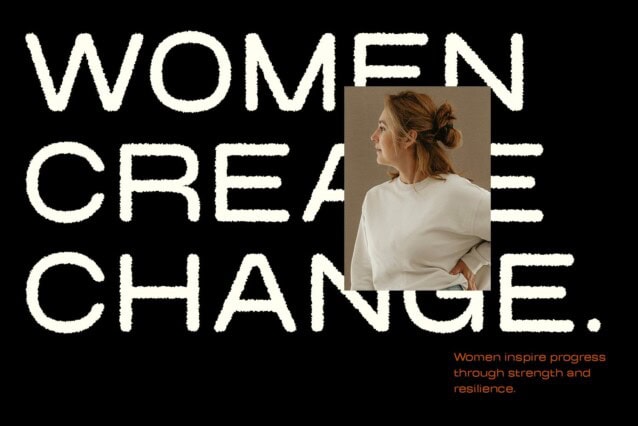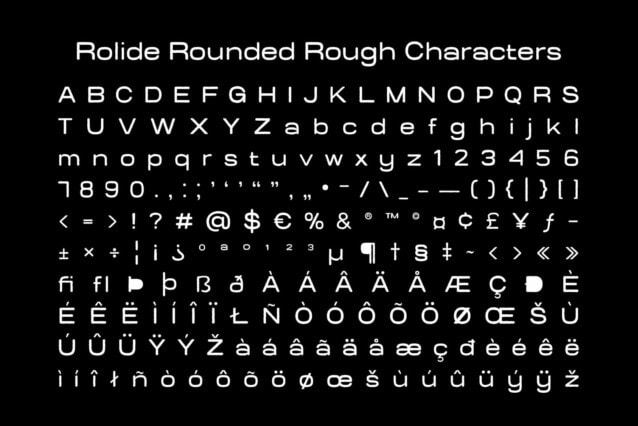
Rolide Rounded Rough Font
Rolide Rounded Rough Font is a contemporary sans-serif font featuring wide, rounded letterforms combined with a subtle rough texture, creating a unique balance of minimalism and organic character. The smooth curves exude a friendly and modern feel, while the rough effect introduces an authentic, handcrafted touch.